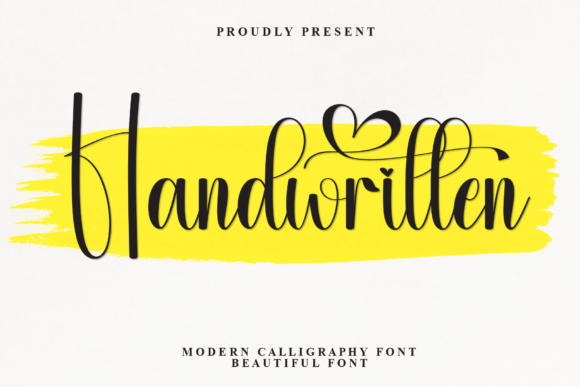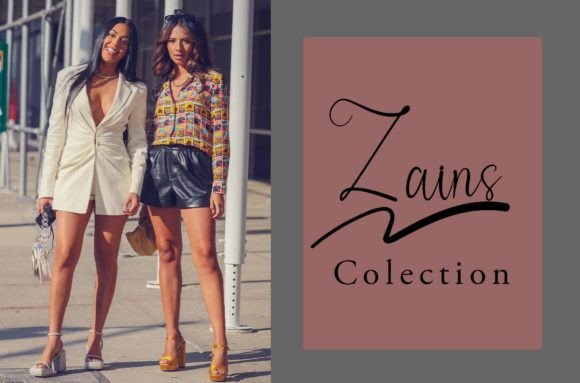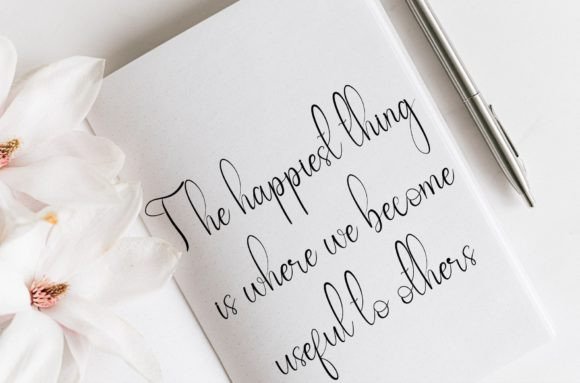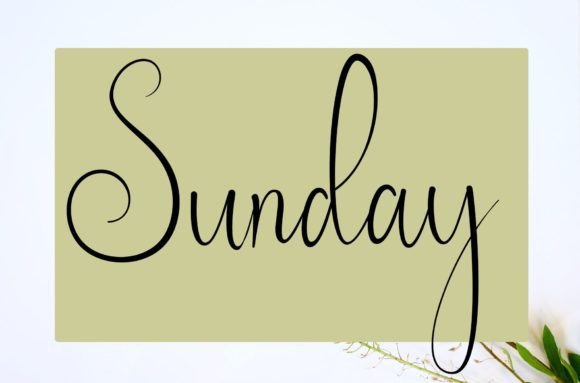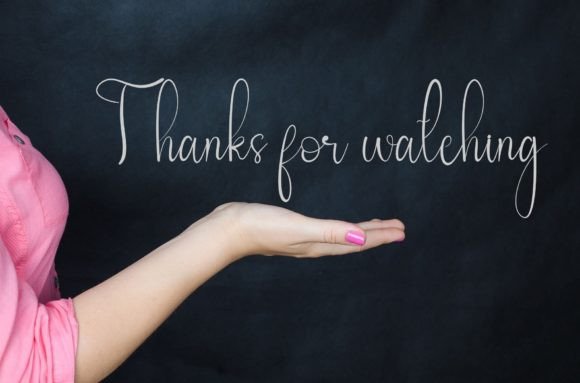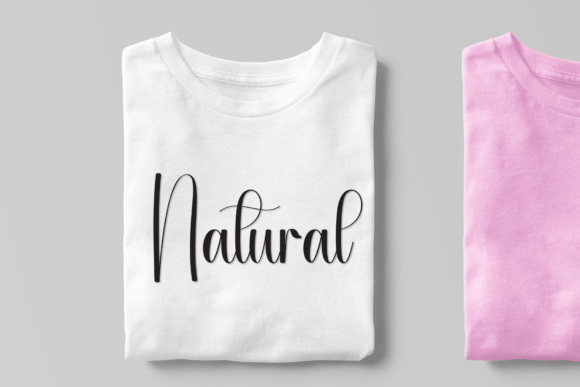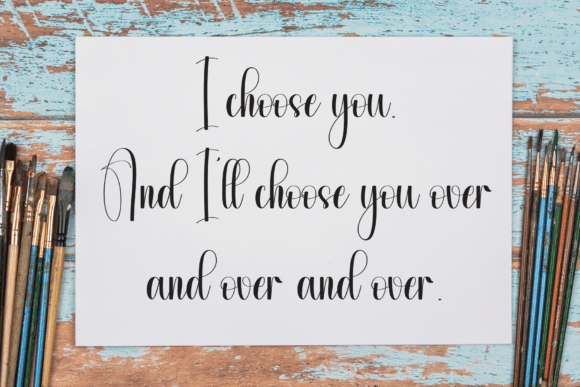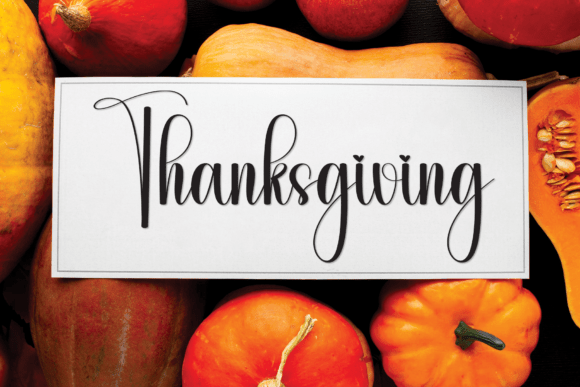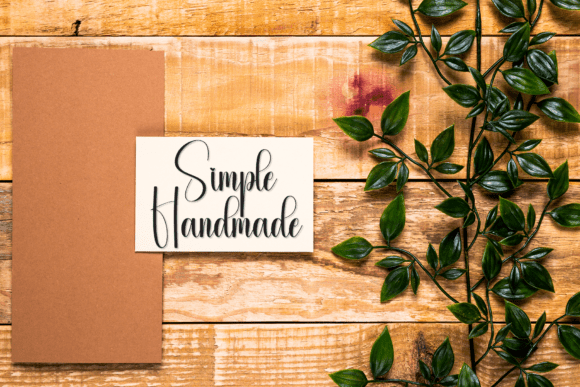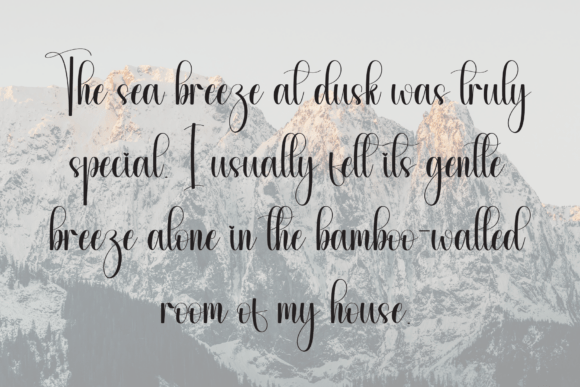
The Power of Handwritten Font
Have you ever found yourself sitting at your desk, pen in hand, brainstorming a new project and suddenly a burst of creativity hits you? The ideas start flowing, and you can’t help but feel a rush of excitement. This is what it’s all about – bringing your vision to life, and that’s exactly what the Handwritten Font can help you do.
This elegant and flowing handwritten font is perfect for designers looking to add a touch of personality to their projects. With its beautiful and balanced character, Handwritten Font fits seamlessly into a wide range of designs, from elegant invitations to modern websites. Its versatility makes it a valuable asset for any designer looking to take their work to the next level.
Key Features of Handwritten Font
• Unique Characteristics: The Handwritten Font features a distinctive, cursive style with varying line widths, giving it a personal and artistic touch. Each letter is carefully crafted to resemble handwritten text, making it perfect for creative projects and designs that require a human touch.
• Font Variations: The font family includes multiple styles, such as Regular, Italic, Bold, and Bold Italic, allowing designers to choose the perfect variation to suit their project’s tone and mood.
Handwritten Font Review
Overall, I think Handwritten Font is a decent addition to any designer’s toolkit. It has its charm, but like any font, it’s not perfect. Here’s a balanced review:
• The font is indeed very ‘handwritten’, capturing the feel of a real handwritten note.
• It’s a great choice for creating a personal, human touch in your designs.
• Handwritten Font has a wide range of styles and variations, making it suitable for different design contexts.
• The font can be a bit too casual for formal or professional designs.
• It may not be the best choice for body text, as it can be difficult to read in large blocks.
• Some characters or symbols may not be available or may not render correctly.
While Handwritten Font won’t be the go-to choice for every design project, it’s a nice addition to any font library. It’s perfect for adding a touch of personality to your designs, but use it sparingly and with caution.
Alternatives to Handwritten Font for Designers
1. Brush Script
Brush Script is a flowing, cursive font that mimics the look of hand-painted lettering. It’s perfect for creating a sense of elegance and sophistication in invitations, wedding designs, and luxury branding. Compared to Handwritten Font, Brush Script has a more refined and polished look, making it suitable for high-end projects.
Great Vibes is a modern, handwritten font with a relaxed and casual feel. It’s ideal for creating a friendly and approachable atmosphere in logos, social media graphics, and advertisements. Unlike Handwritten Font, Great Vibes has a more fluid and dynamic look, making it perfect for digital applications.